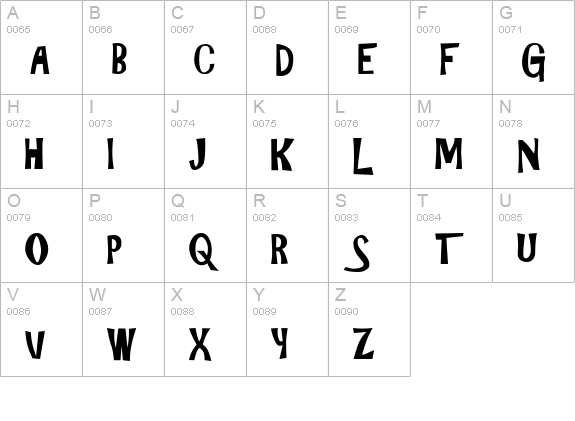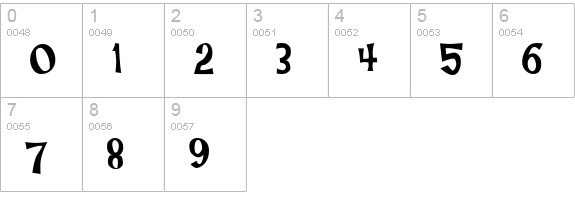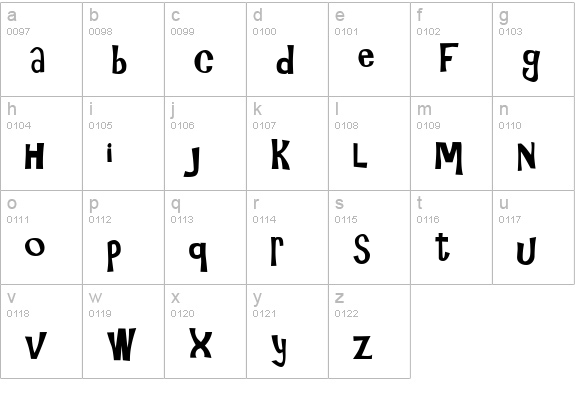
Gilligans Island Font Details
The Gilligans Island font is a whimsical and playful typeface that exudes a sense of adventure and tropical charm. With its quirky, hand-drawn style and unique letter shapes, this font is perfect for adding a touch of fun to your designs. Whether you're creating posters, invitations, or branding materials, Gilligans Island font will bring a sense of lightheartedness and creativity to your projects. Best of all, Gilligans Island font is available for free download at FontsMarket.com. Simply visit the website and start using this delightful font in your designs today. Don't miss out on the opportunity to add a touch of tropical flair to your creations with the Gilligans Island font!